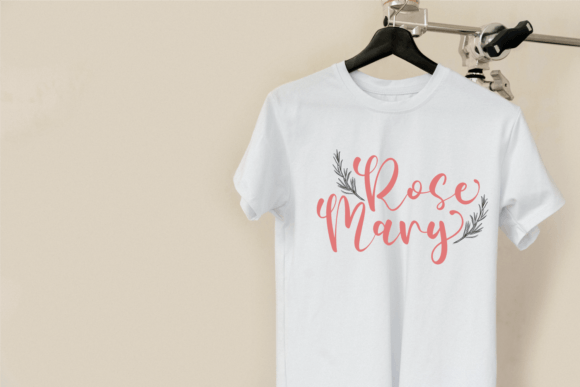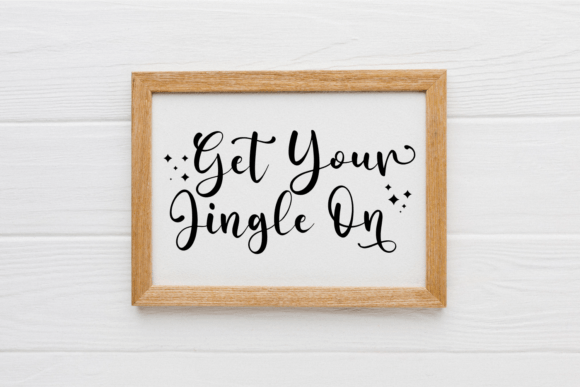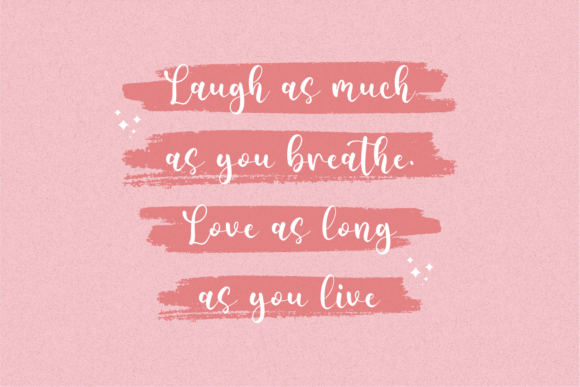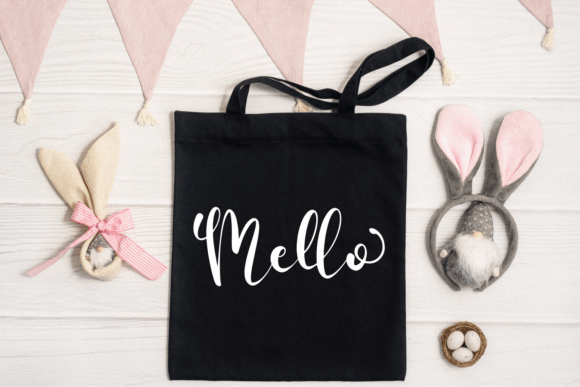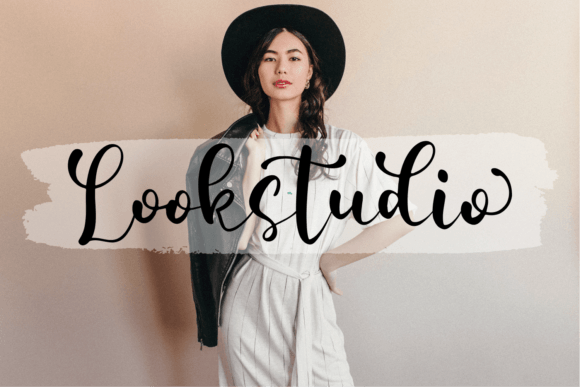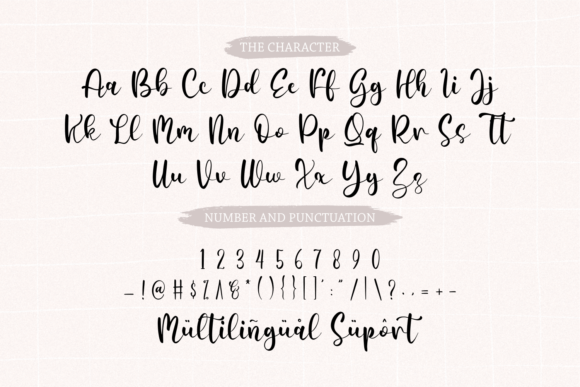
Introduction to Moon Pretty Font
Moon Pretty is a flowing handwritten script font, described by an elegant touch, perfect for your favorite projects.
Key Features of Moon Pretty Font